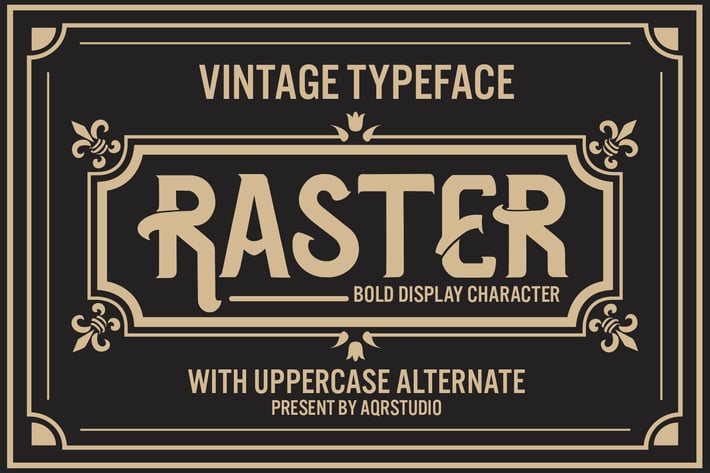
Raster - Vintage Blod Display Font
Raster - Vintage Blod Display Font contains a lowercase, uppercase, symbol, and also supports multi-language. There’s a lot of ligature in this font. Raster - Vintage Blod Display Font also comes with ligatures, stylistic alternates and many more.
this font suitable for fashion, branding, catalog and other design that you want.